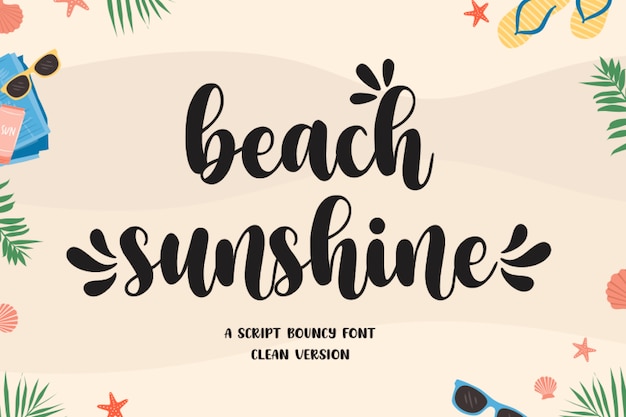
Beach Sunshine is a colorful font that will enrich your creations with some happy tones. Download this format and unleash your creativity with new invitation cards, posters and much more.
Beach Sunshine (400)